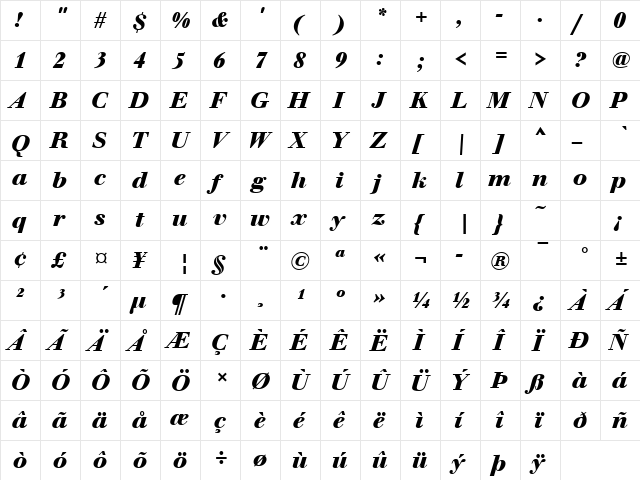
WalbaumBucT Bold Italic Font Preview
WalbaumBucT Bold Italic
WalbaumBucT Bold Italic Font Details
Design Context for WalbaumBucT Typeface
WalbaumBucT takes a measured approach to typography — its balanced proportions and neutral character make it a reliable workhorse for both digital and print work. Its italic angle brings a sense of urgency and motion to the letterforms. Its bold stroke weight gives it real presence on the page.